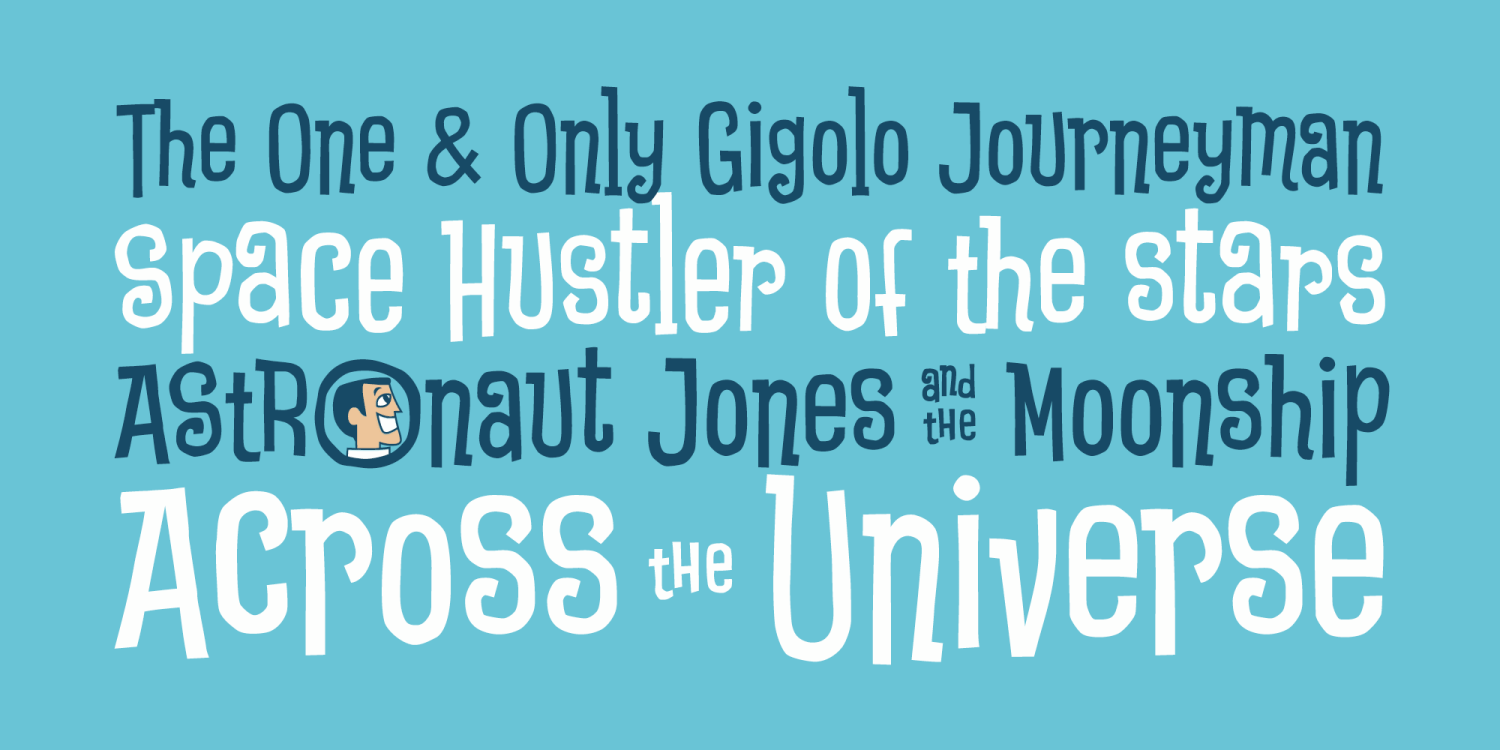
Whipsnapper Font Family - Poster #1
Whipsnapper Font Family - Poster #2
Whipsnapper Font Family - Poster #3
Whipsnapper Font Family - Poster #4
About Whipsnapper
A wild at heart offbeat sansserif family inspired not by any single pulp or vintage source but a varied collection of influences. Just an all-around fun typeface with the widths and weights to offer a wide variety of uses.
Whipsnapper Regular by Pink Broccoli